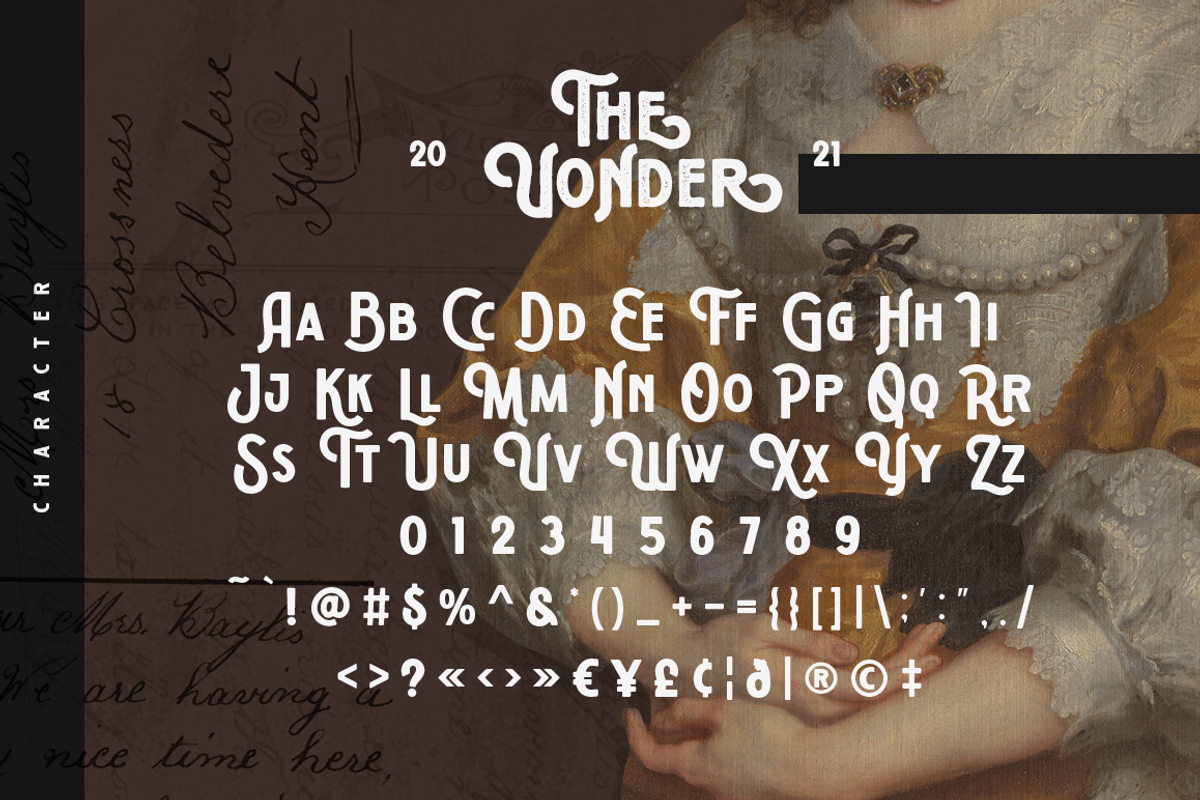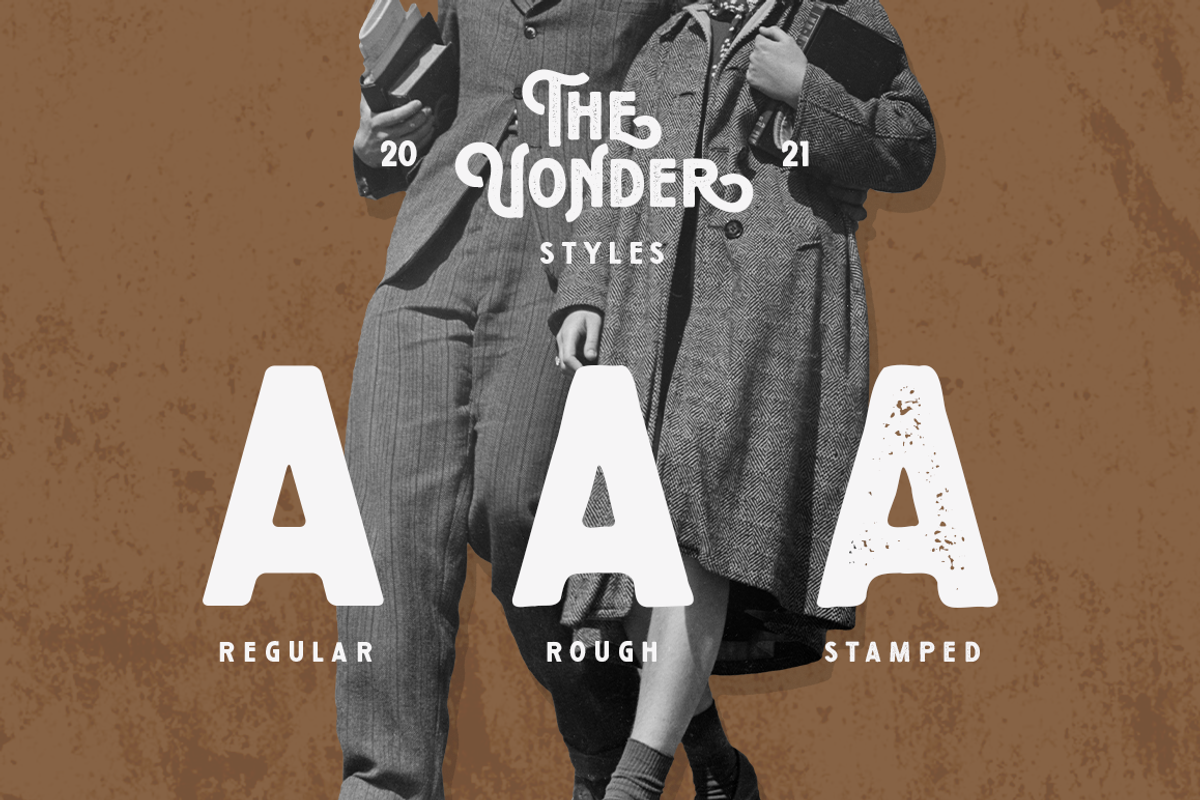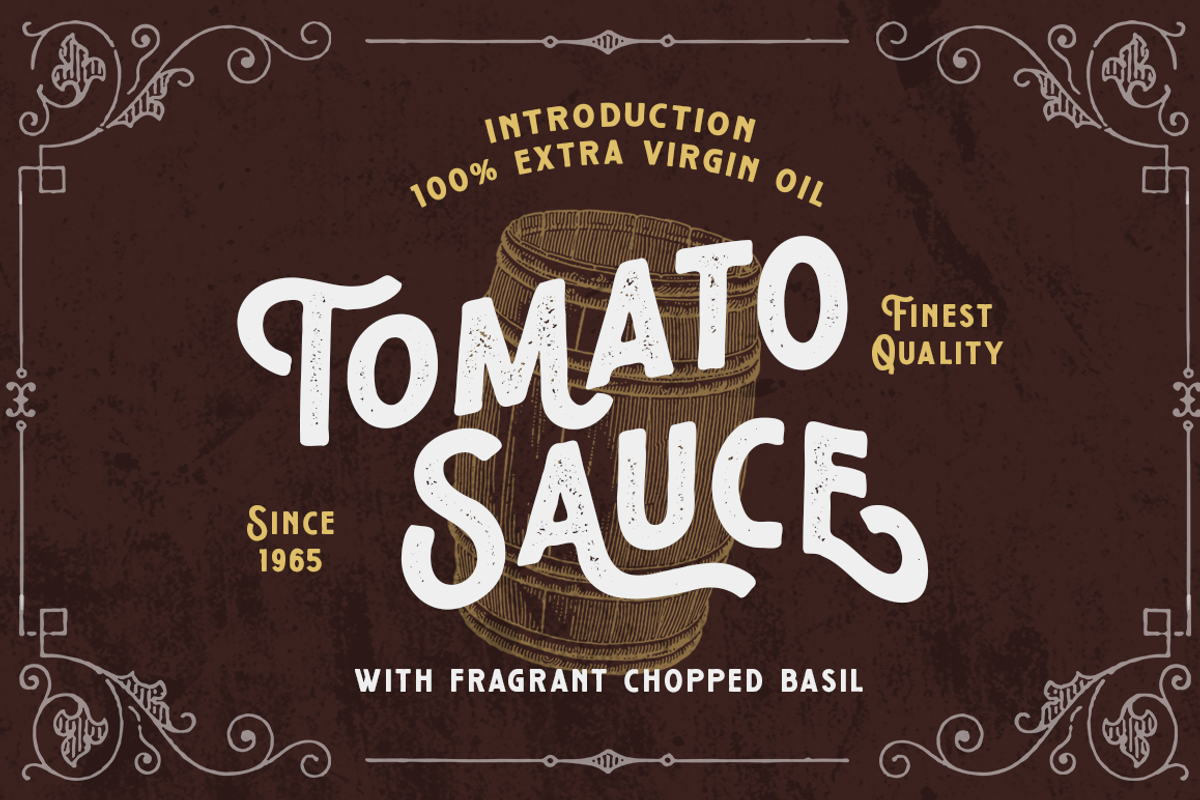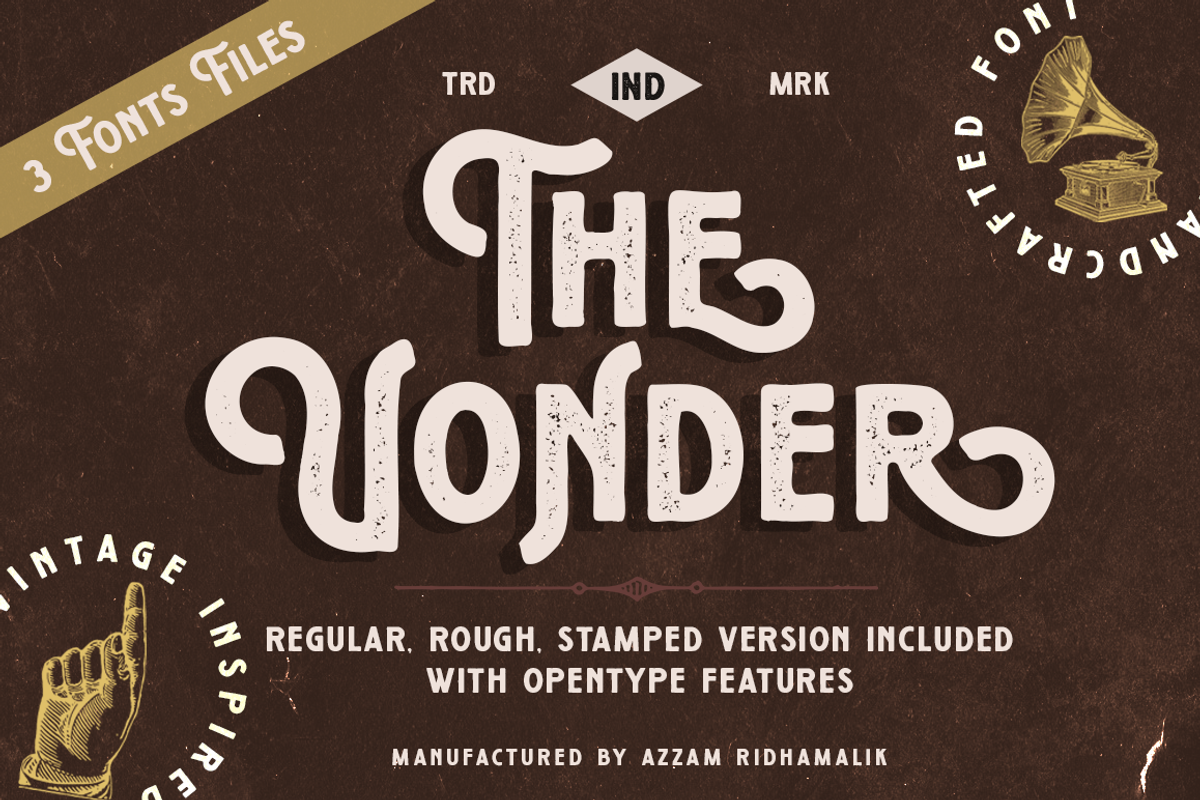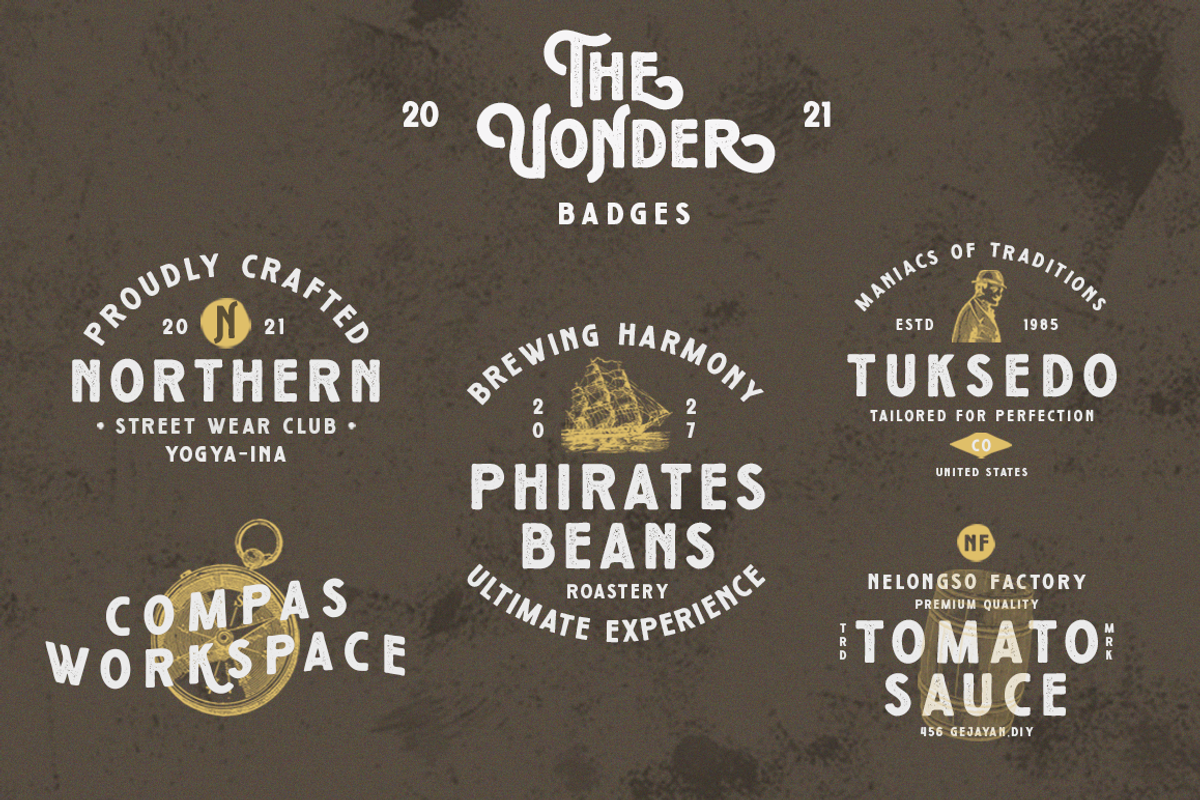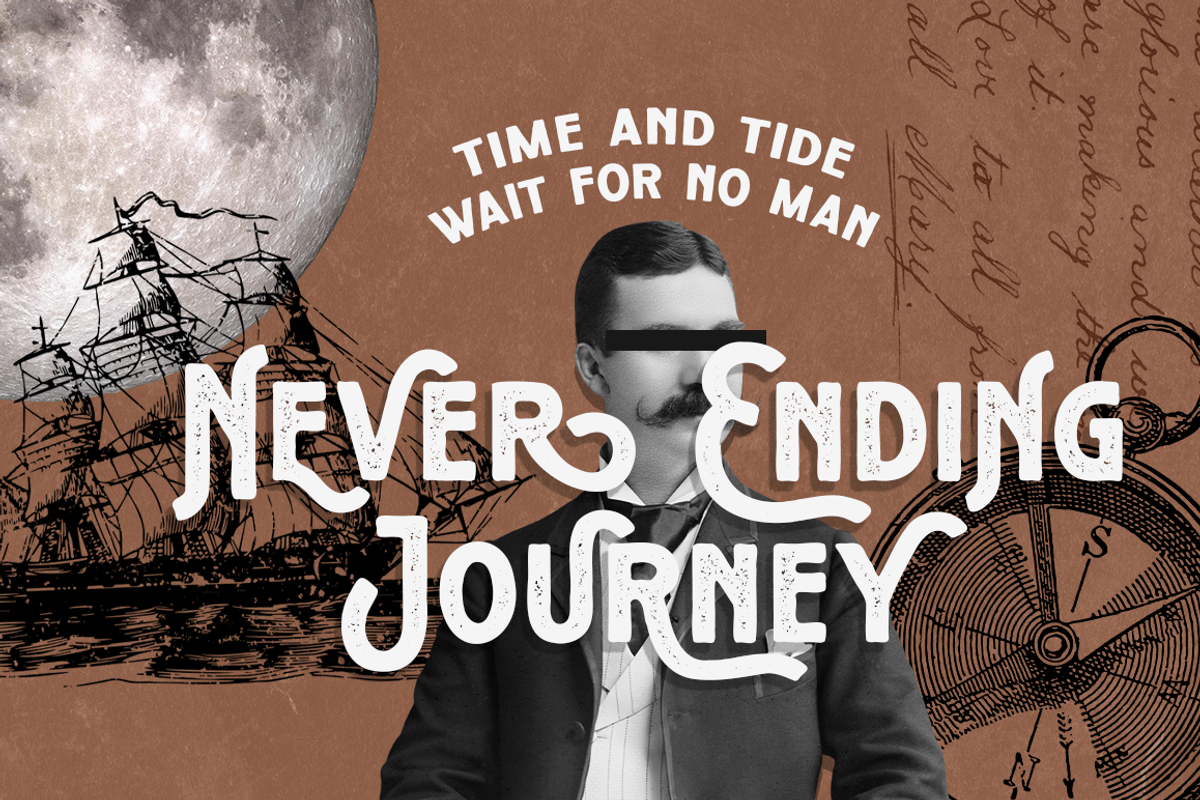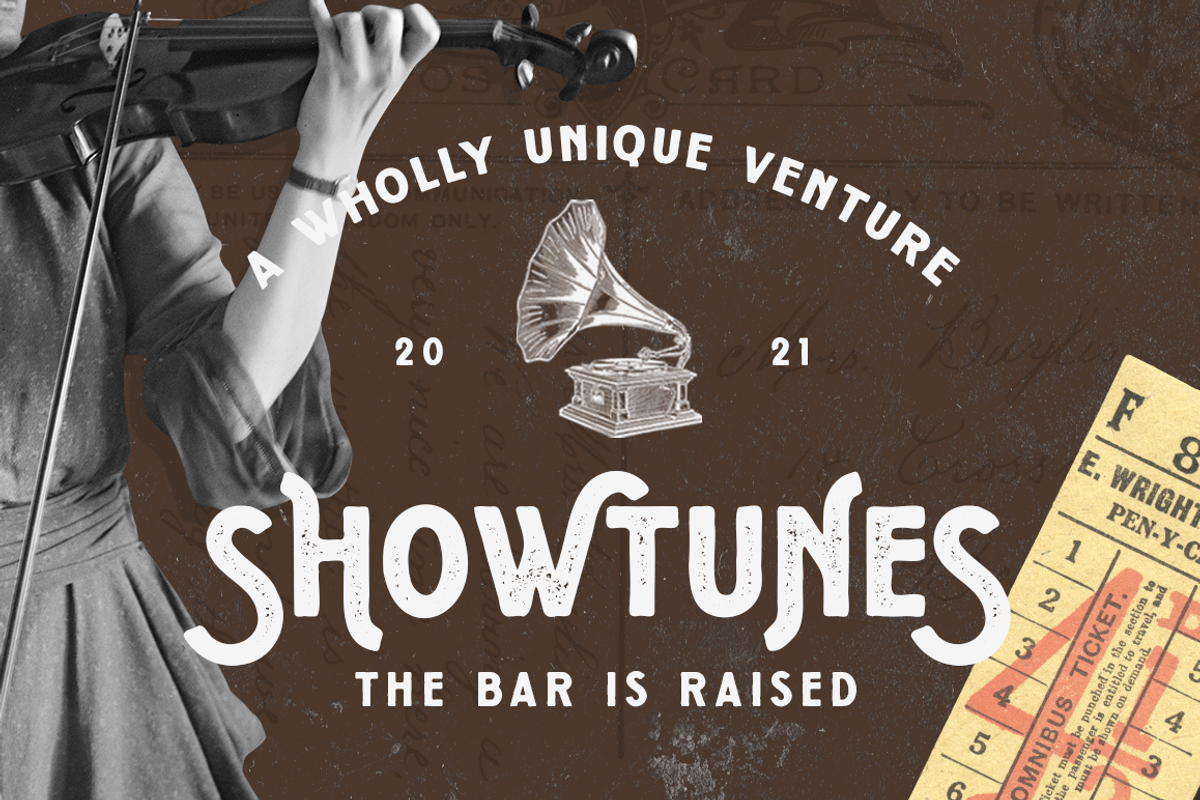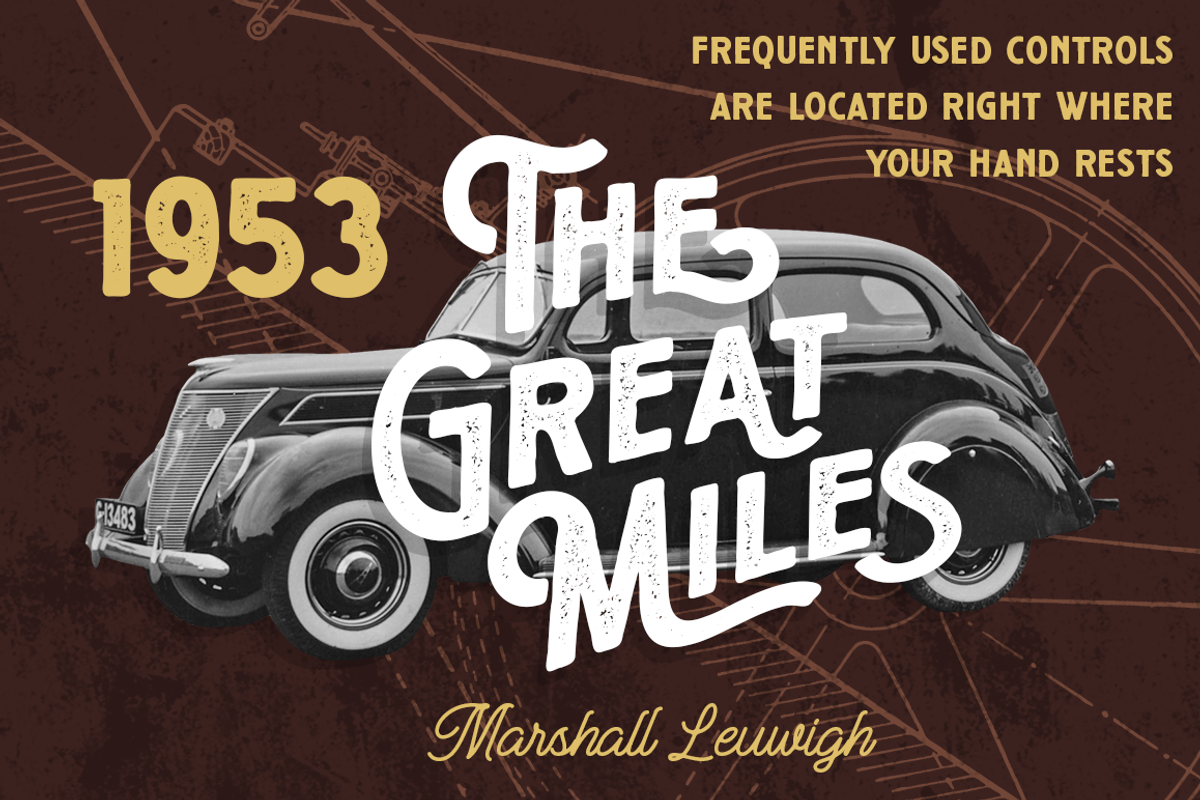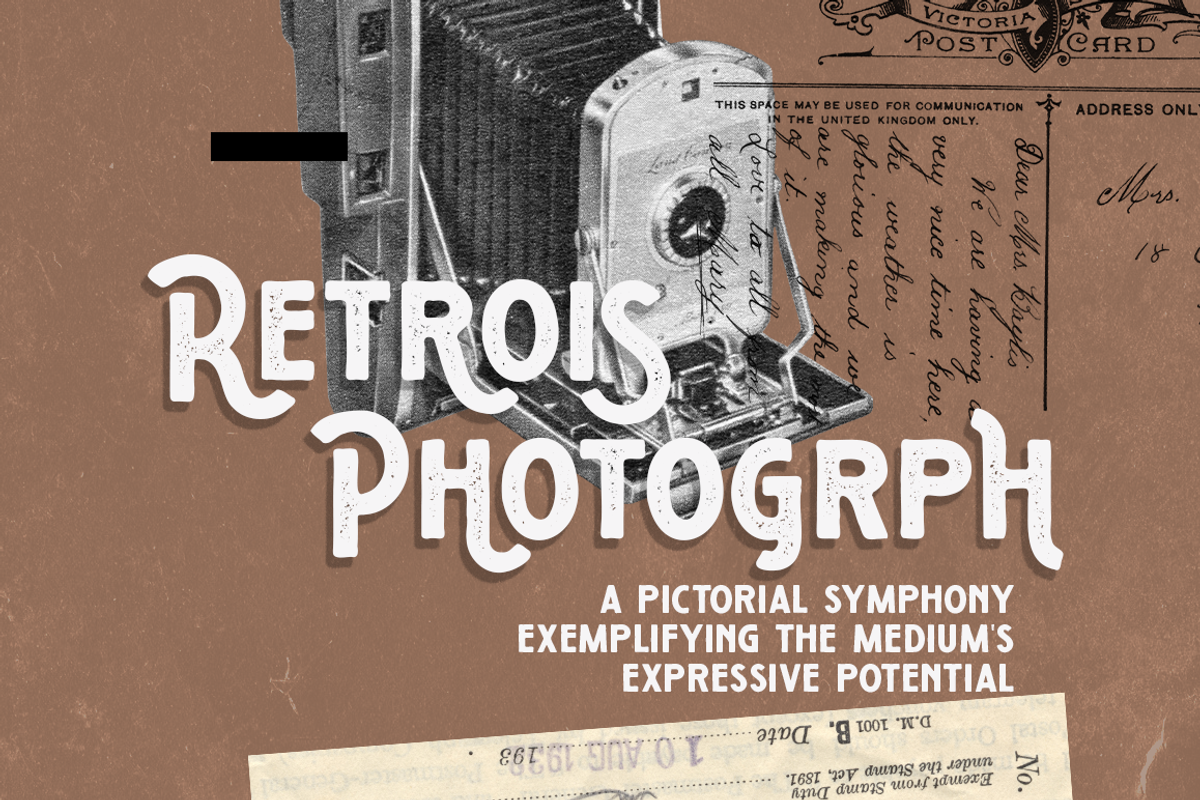
Vonder - Vintage Sans Serif Font
Vonder Font is a cool, rough textured and bold display font. No matter the topic, this font will be an incredible asset to your fonts’ library, as it has the potential to elevate any creation.
All-caps characters, Vonder's also has a lot of alternative characters. It looks really cool when meet vintage looks to any piece.